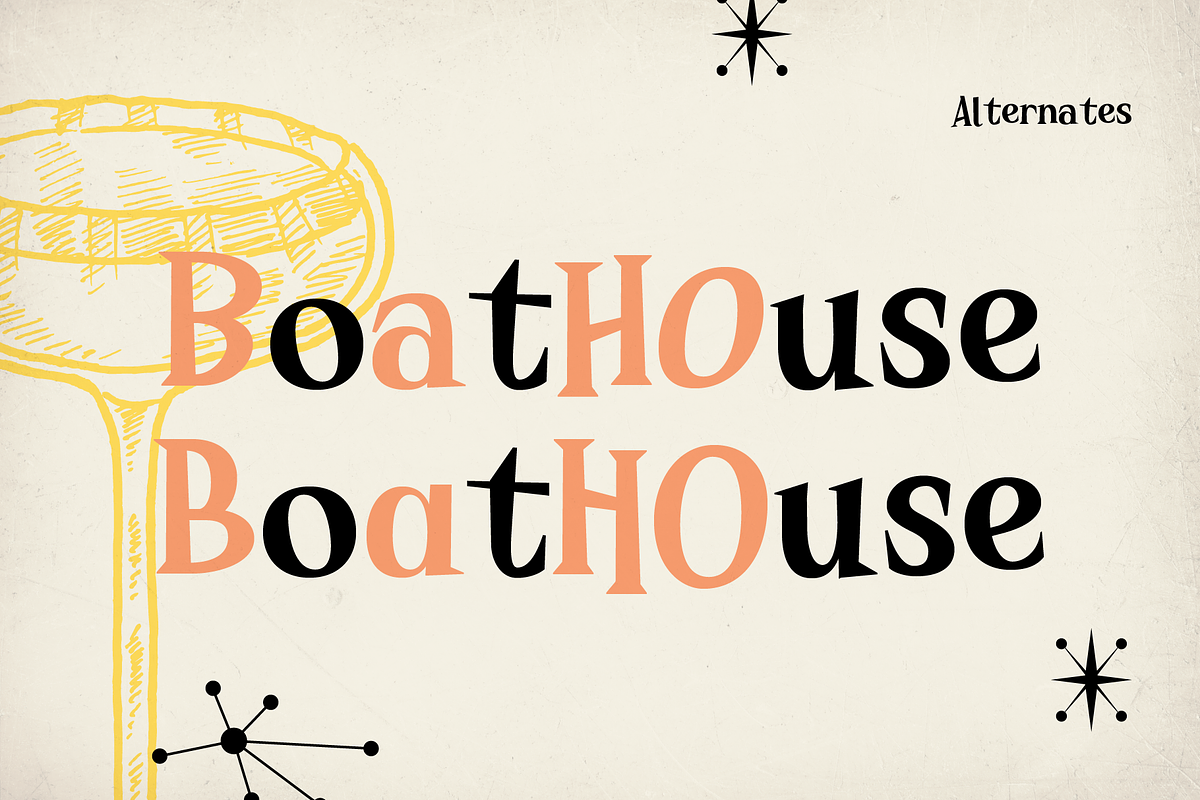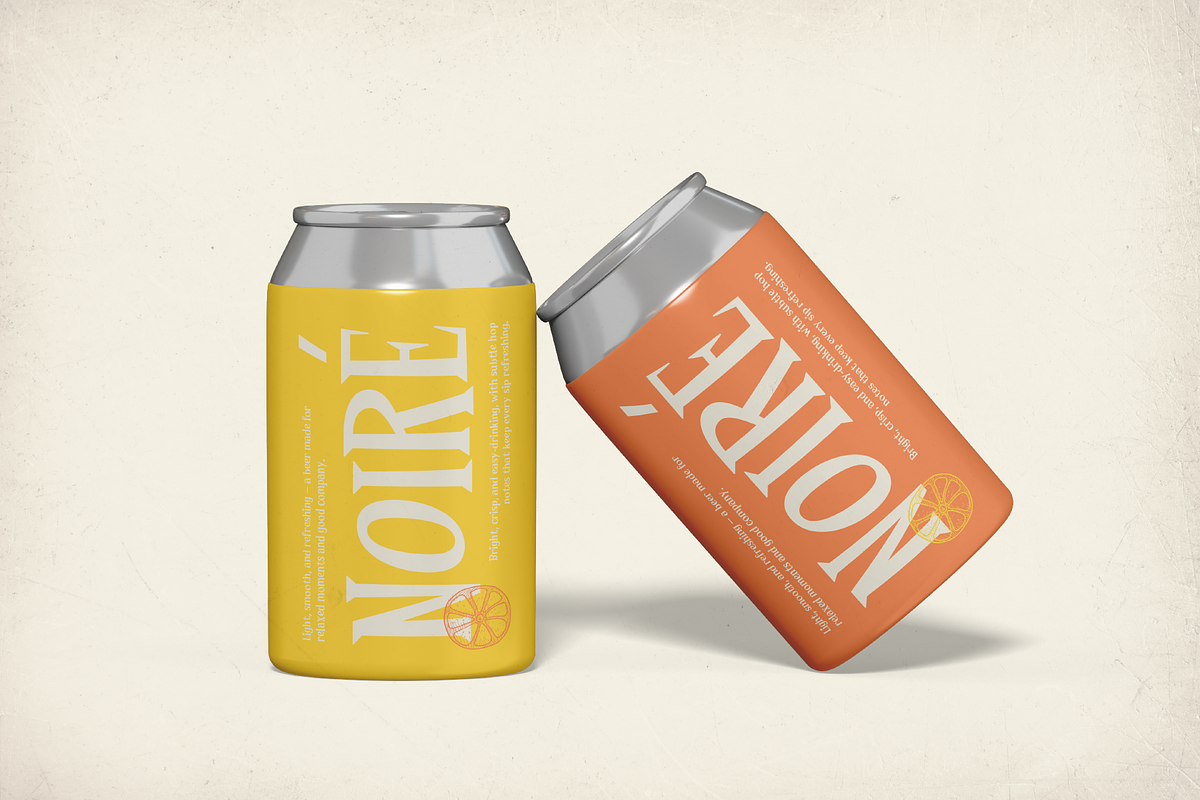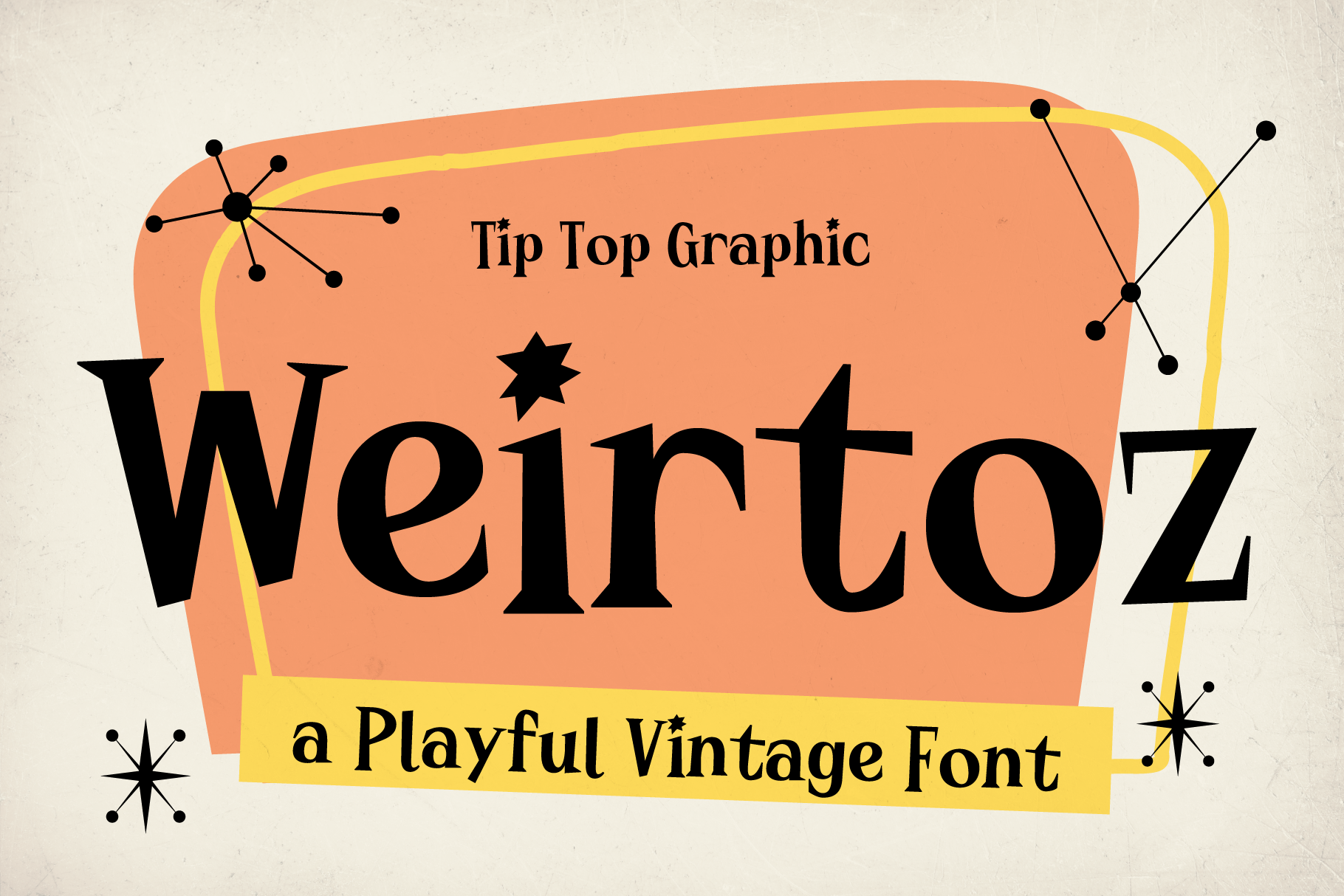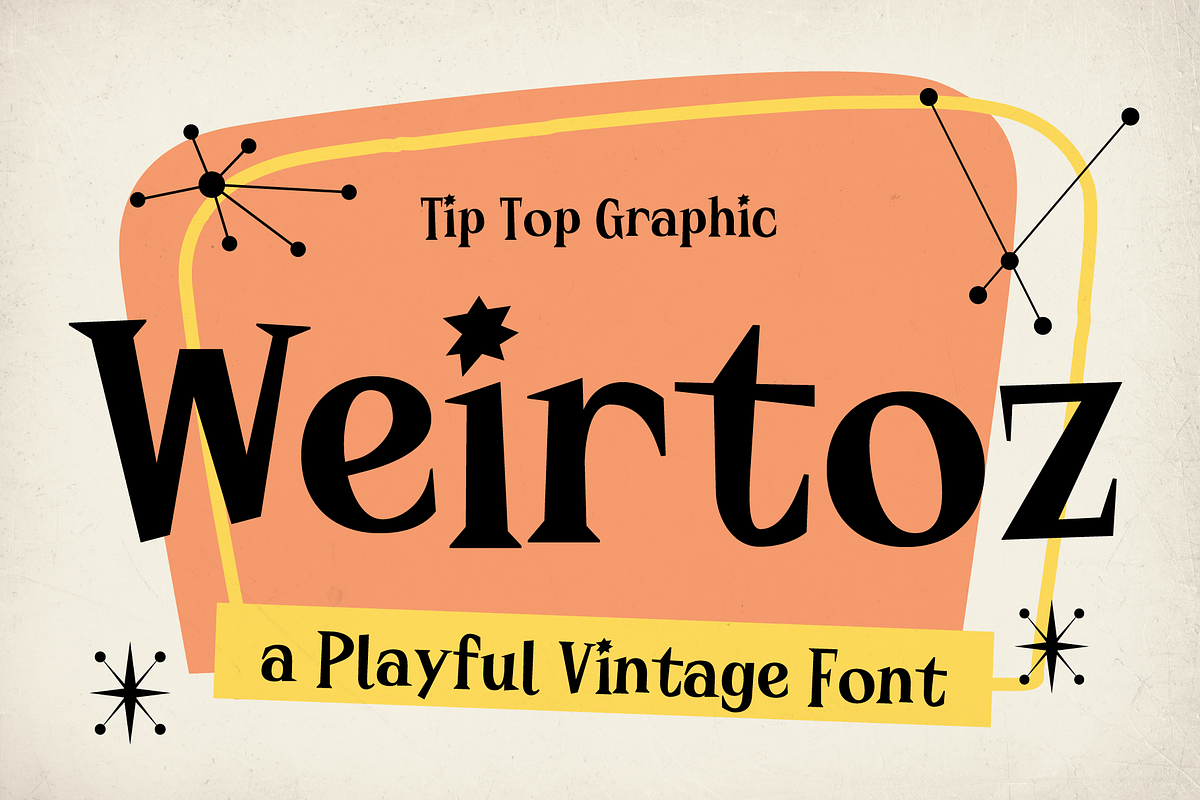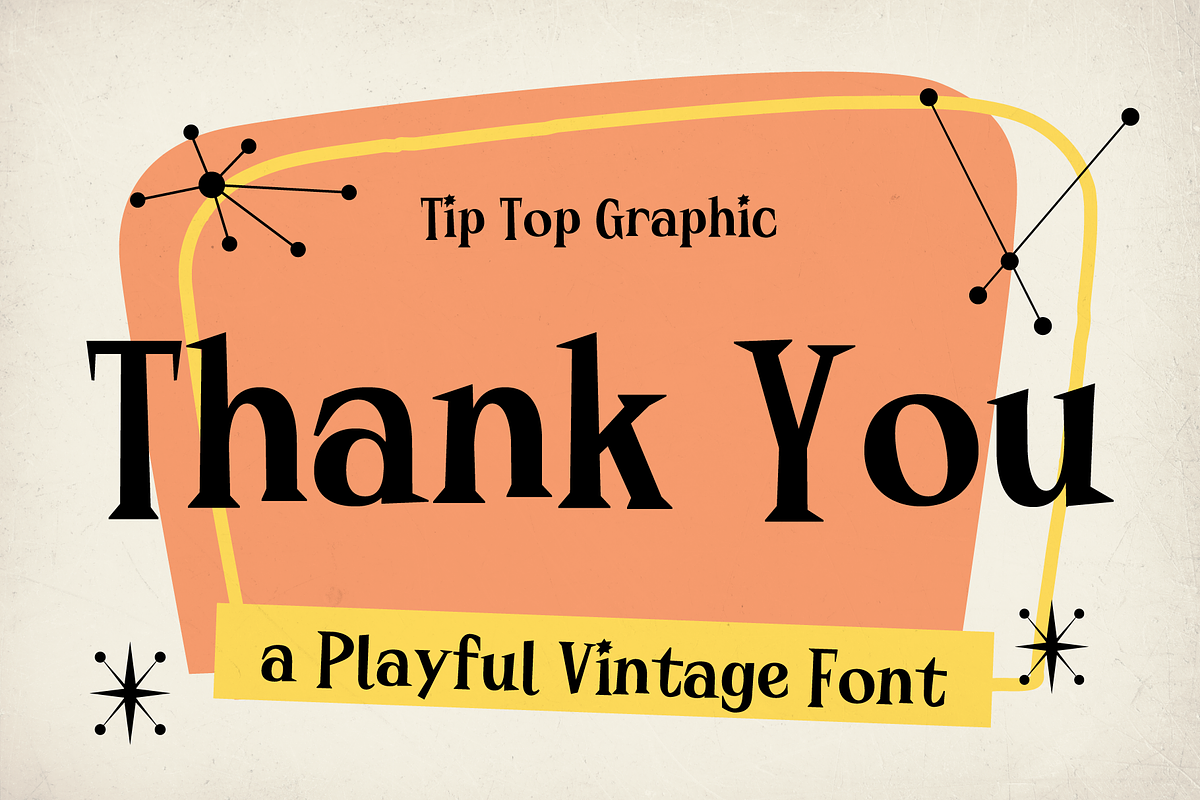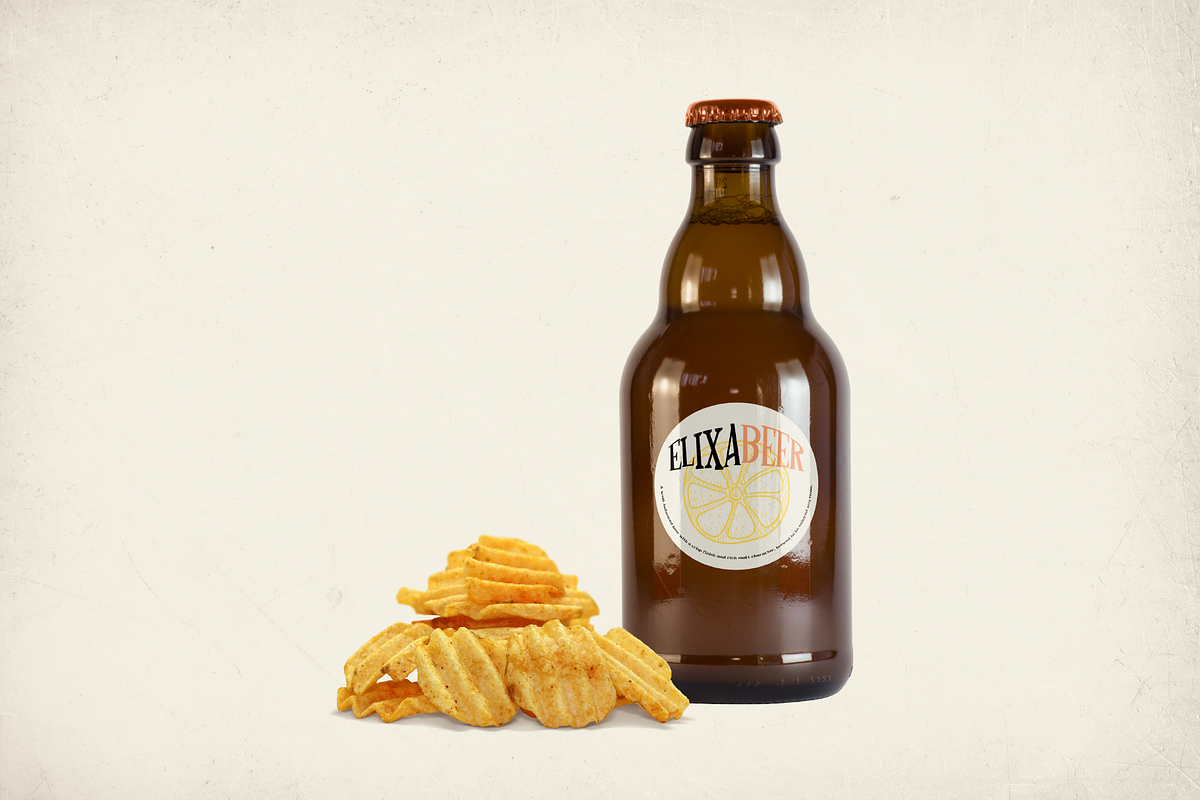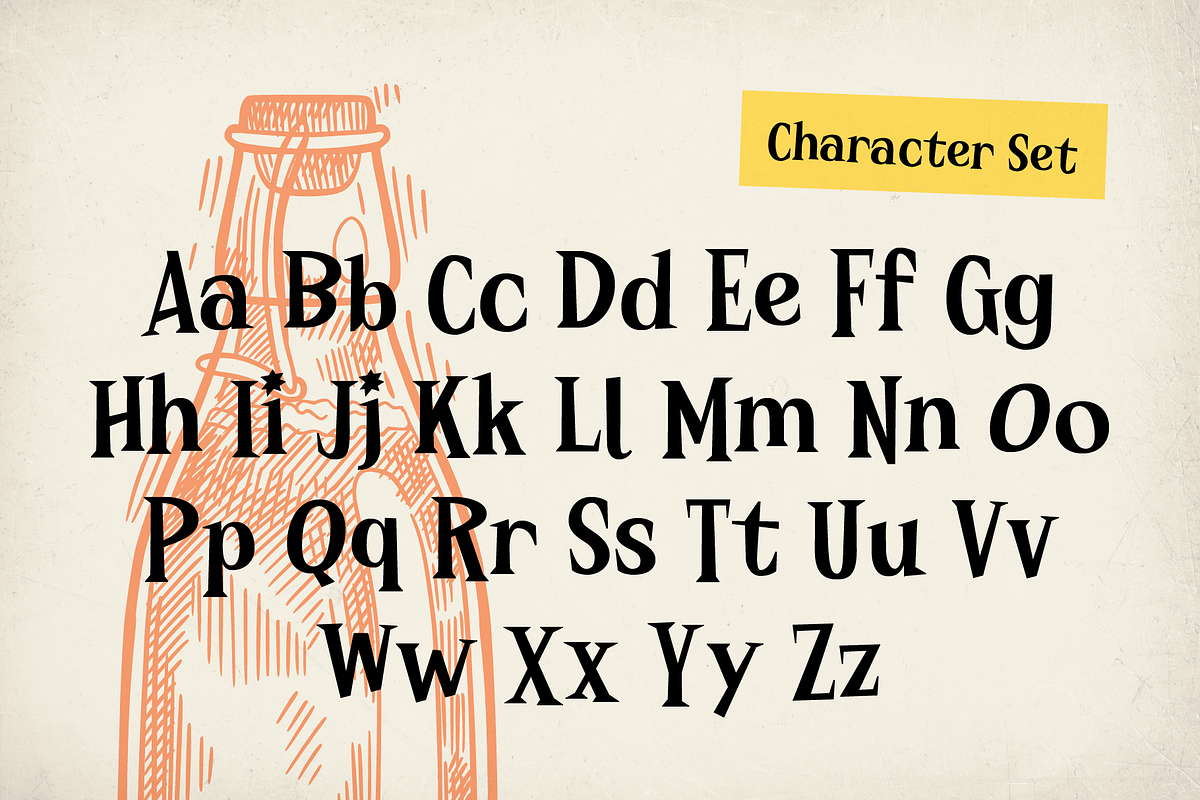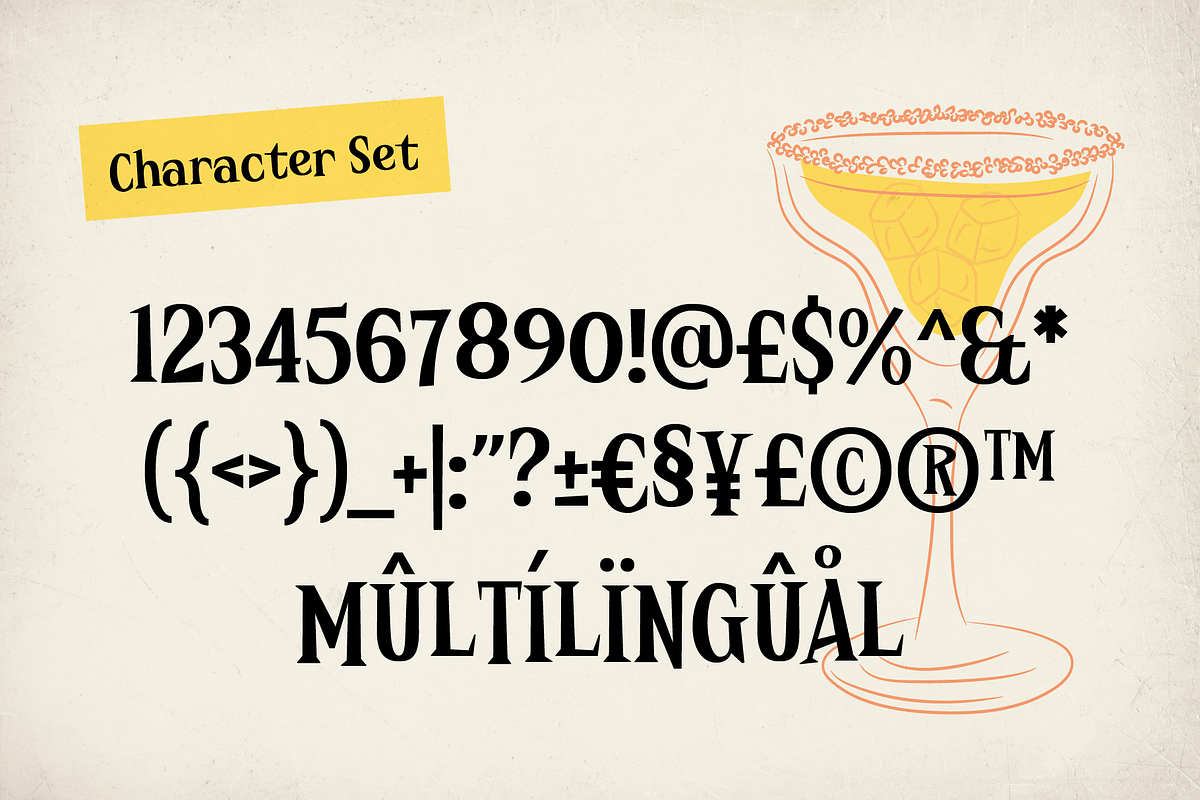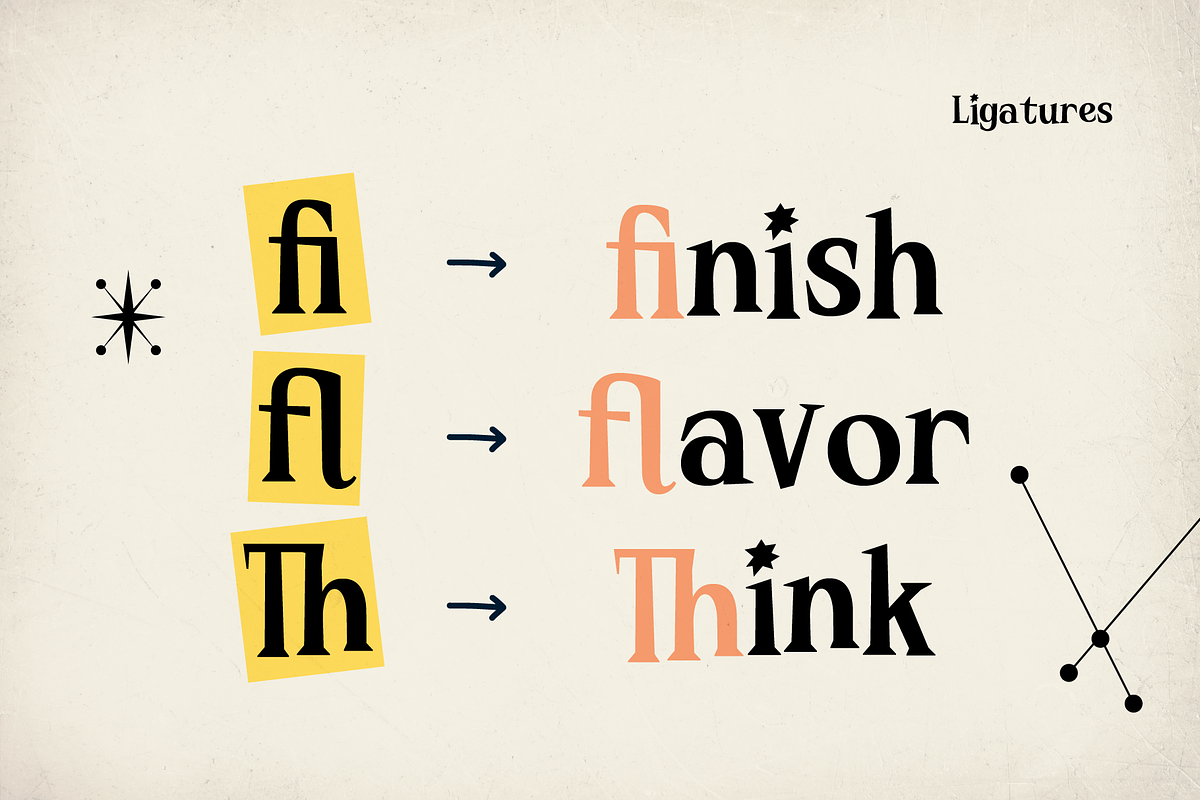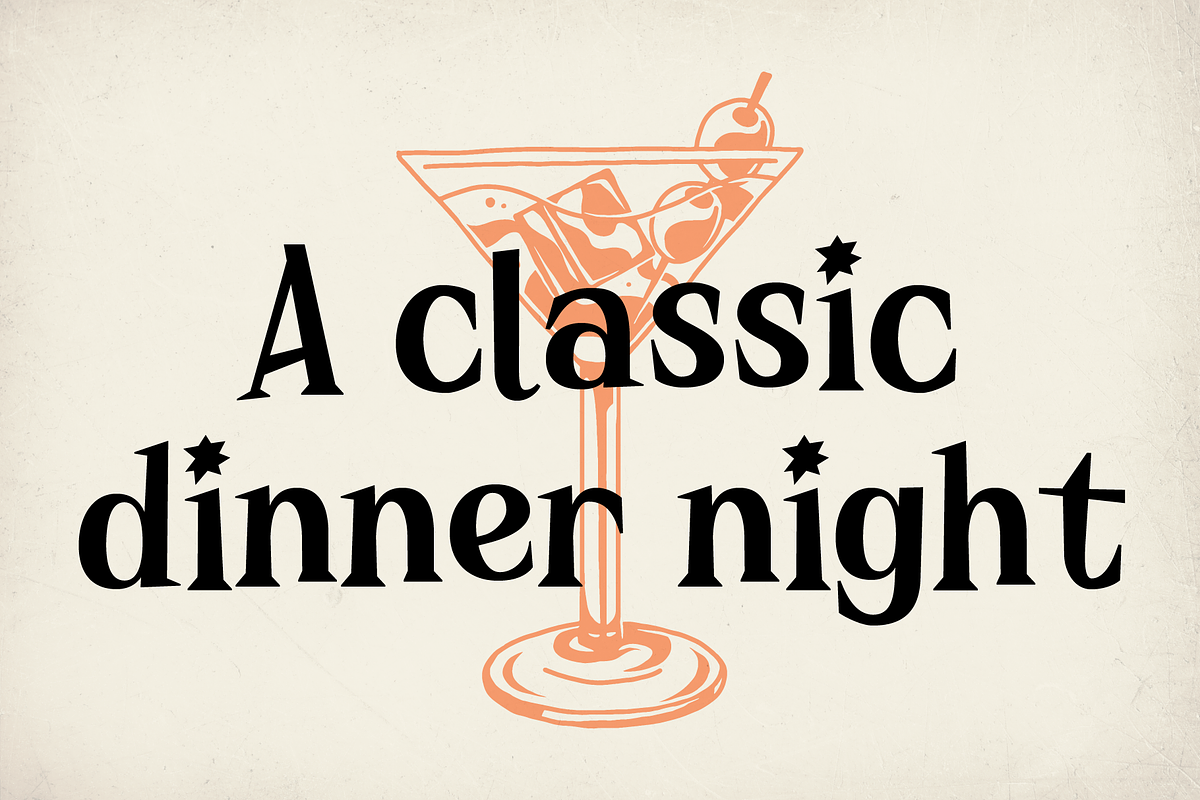
Weirtoz - A Playful Vintage Font
Weirtoz-A Playful Vintage Font is a fun and quirky typeface inspired by retro and vintage lettering styles. With its bold curves and slightly imperfect shapes, this font brings a cheerful handmade feel while keeping a classic old-school vibe. It’s perfect for logos, posters, packaging, stickers, social media graphics, and any design that needs a playful yet nostalgic touch.
Weirtoz-A works beautifully for kids projects, branding, café menus, apparel designs, and creative headlines, adding character and warmth to every word you type.
Weirtoz - A Playful Vintage Font features:
- Punctuation & Numbers